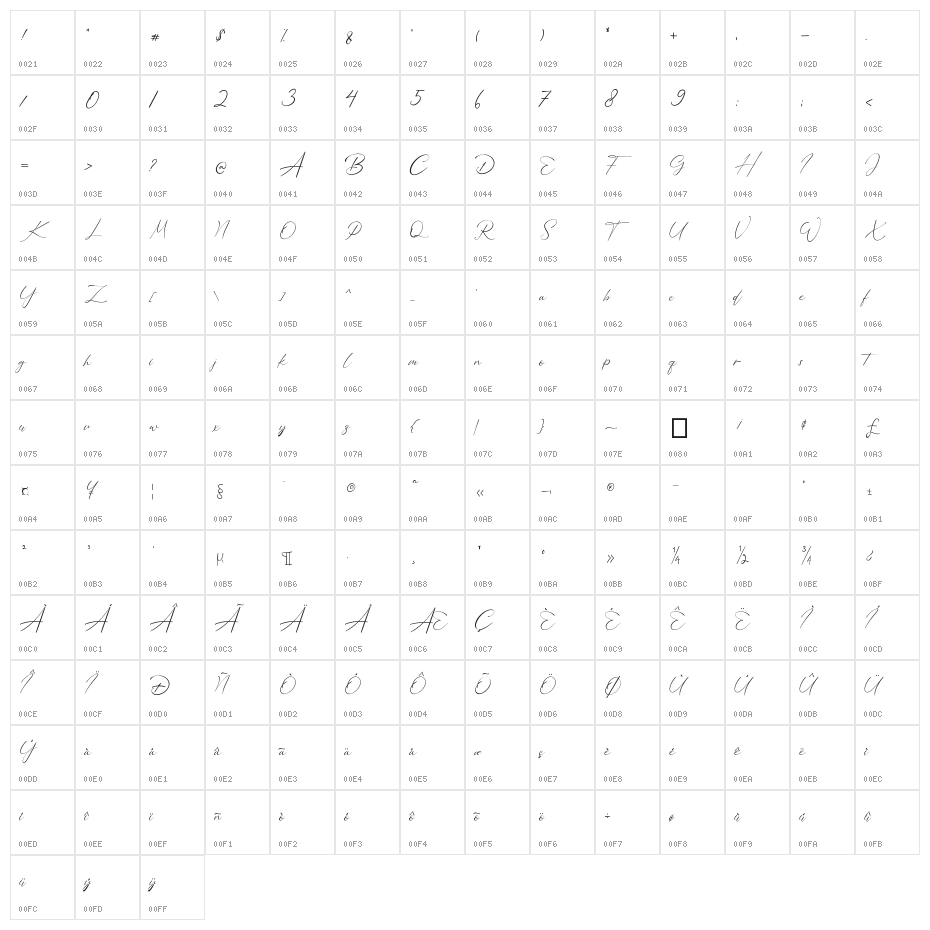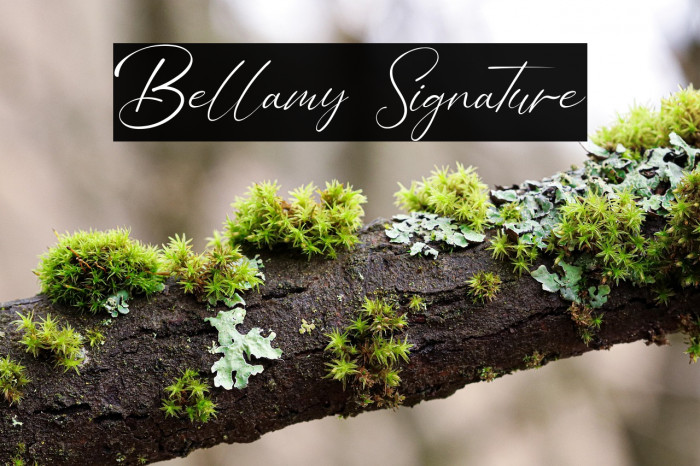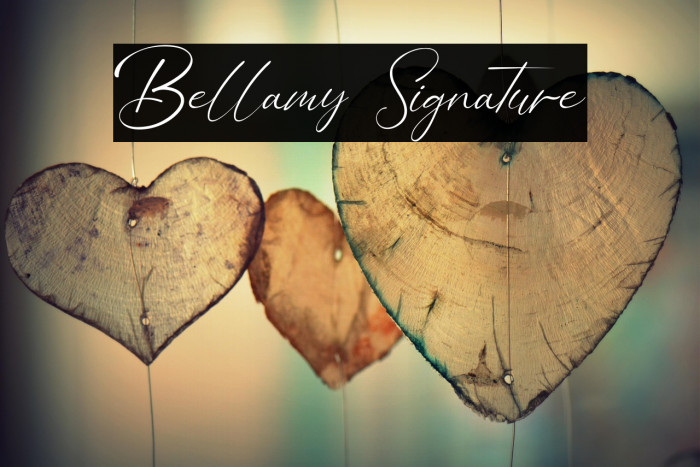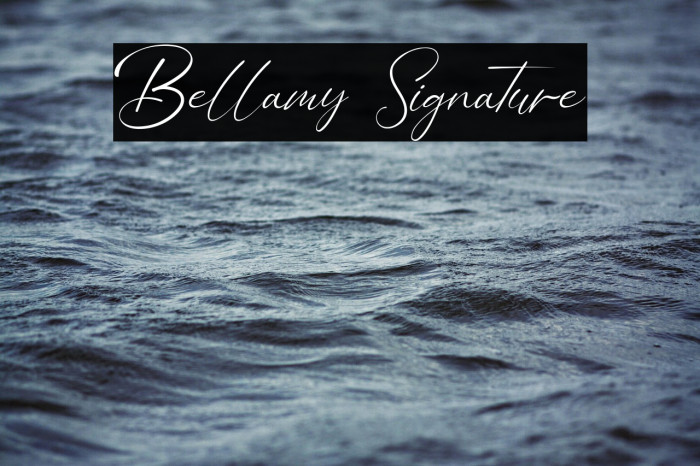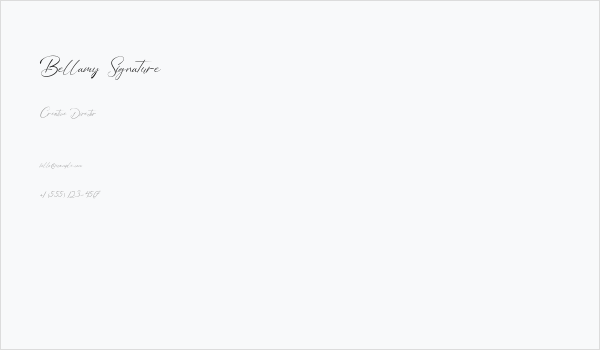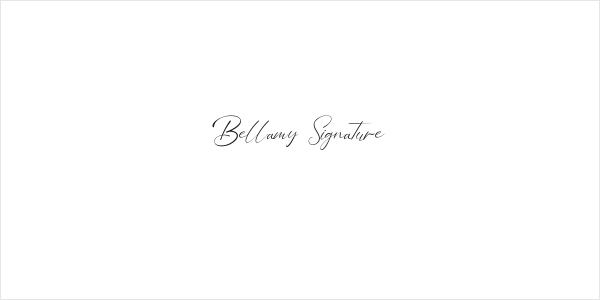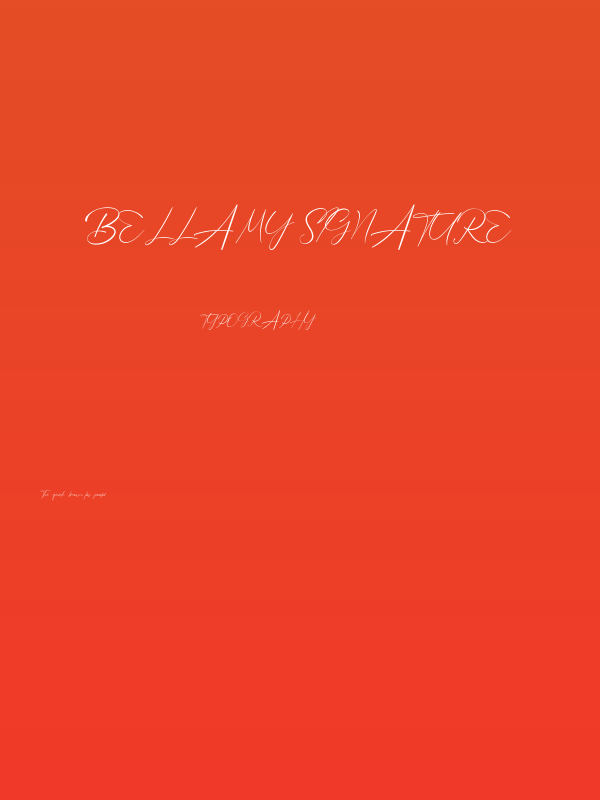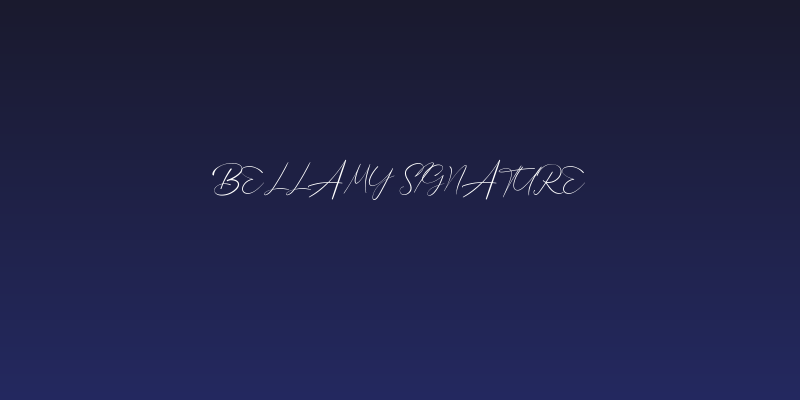
Bellamy Signature Font
Bellamy Signature Description
This elegant script font features a flowing, cursive style that mimics the fluidity of a handwritten signature. The letters are connected with smooth, sweeping strokes, giving it a sophisticated and personal touch. The uppercase letters are grand and expressive, while the lowercase letters maintain a consistent flow, enhancing readability. Numbers and special characters are designed with the same graceful curves, ensuring a cohesive look across all text. This font is perfect for adding a touch of elegance and personality to any project.
| Overall Style | Elegant, Handwritten |
| Proposed Projects | Ideal for wedding invitations, personal branding, elegant logos, and stationery design. |